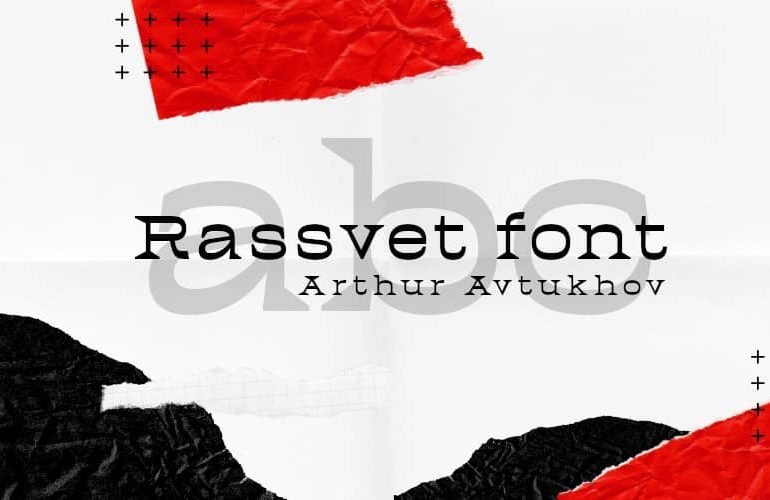
Rassvet Font
We had seen most of the modern age designers use this typeface with lovelo font so that they can add an attractive looking to the design make it user-friendly.
Category: Serif
About Rassvet Font
Introducing the Rassvet Font, a serif typeface designed by Arthur Avtukhov. This font, with its modern rhythm of glyphs, offers a visually appealing display.
We had seen most of the modern age designers use this typeface with lovelo font so that they can add an attractive looking to the design make it user-friendly.